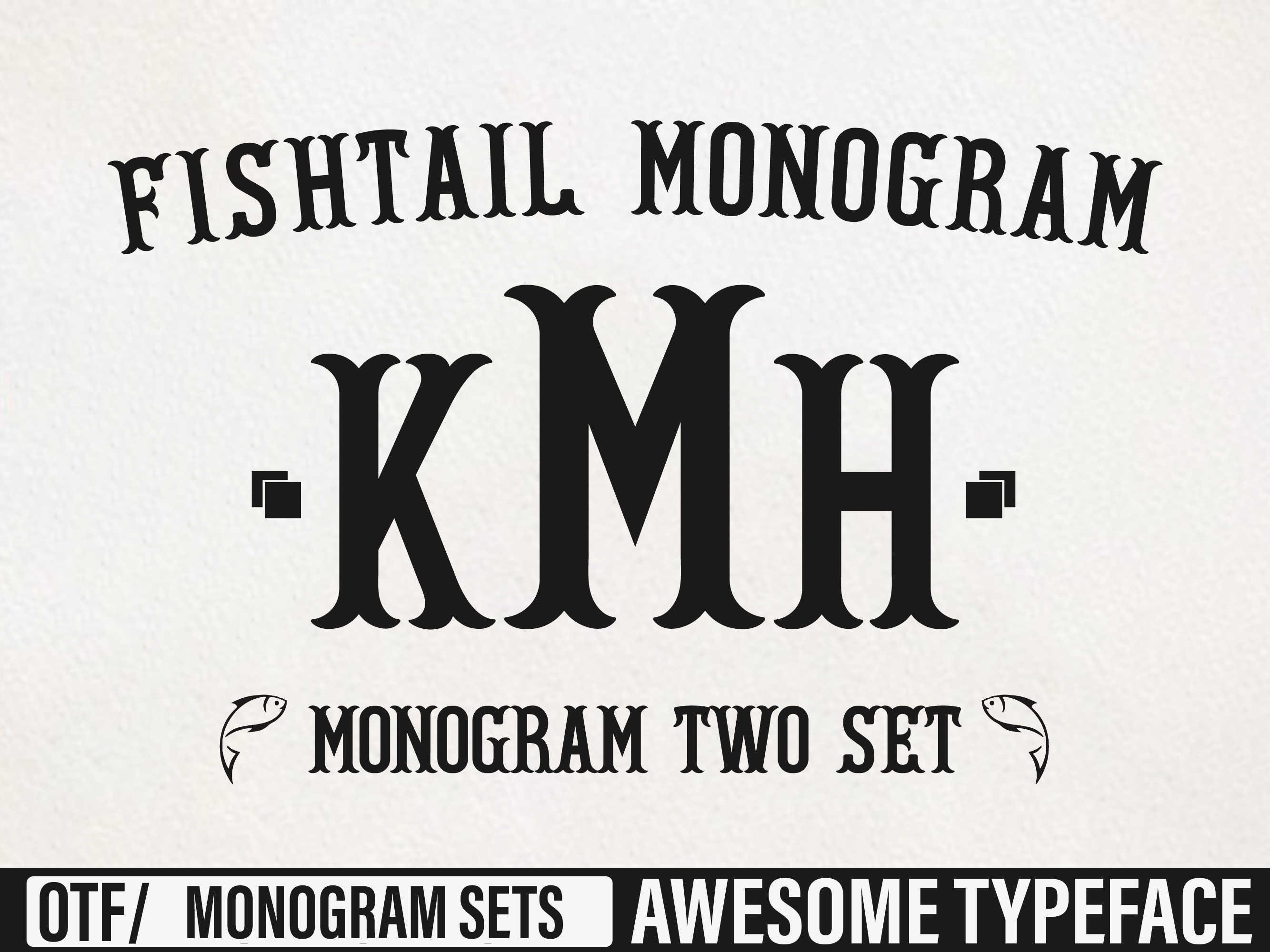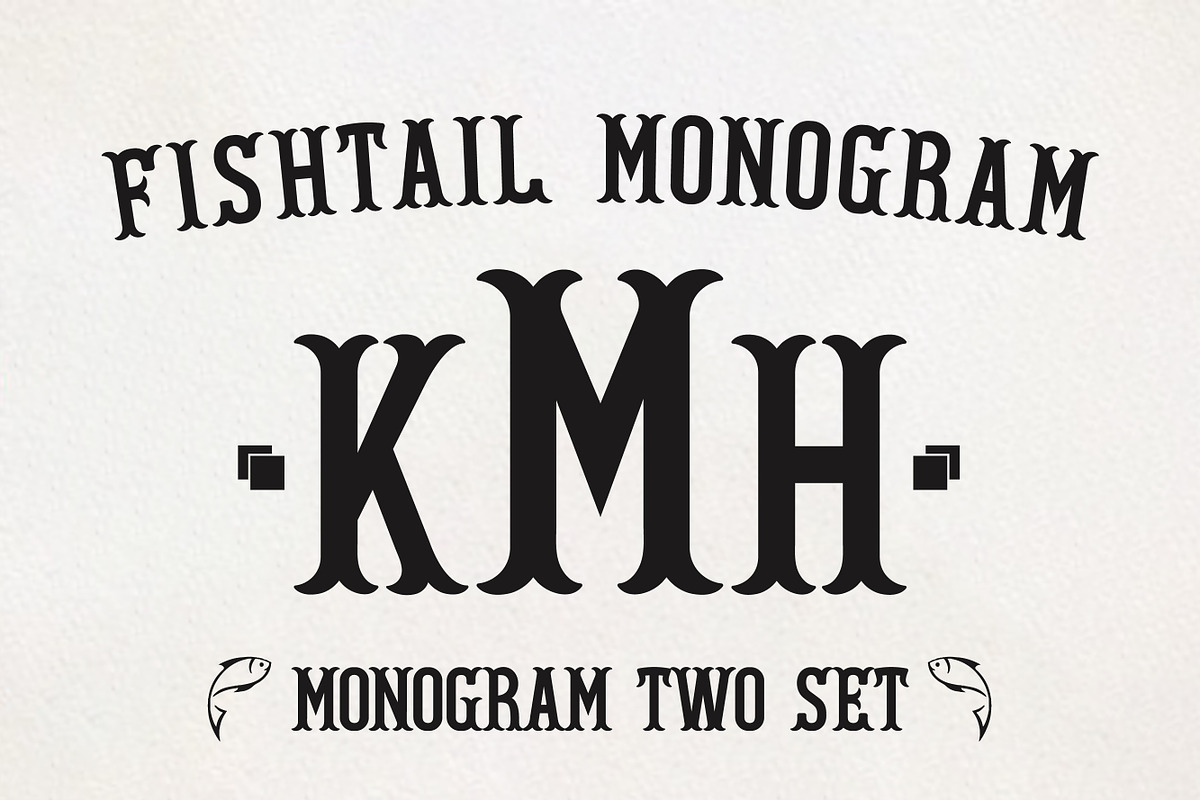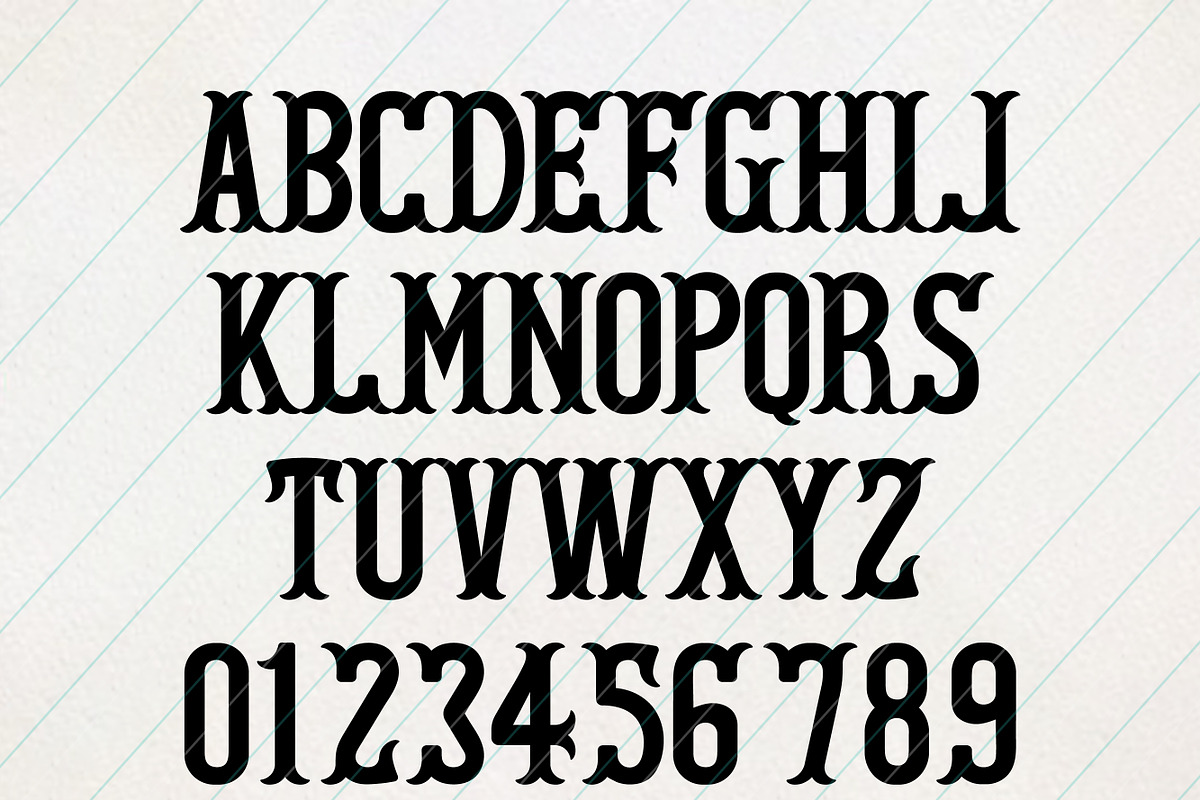
Fishtail Monogram font
Fishtail Monogram is a stylish and eye-catching font that is perfect for various creative projects. Its unique design adds a touch of elegance and uniqueness to any design or craft idea.